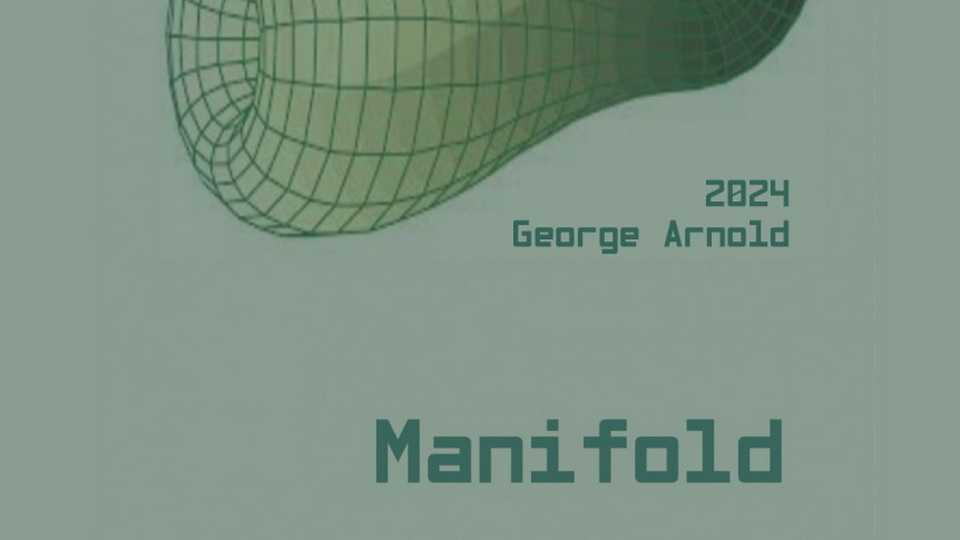
Download Manifold font, a monospaced geometric sans serif typeface that features precise, uniform letterforms and creates a clean and balanced appearance.
Designer: George Arnold